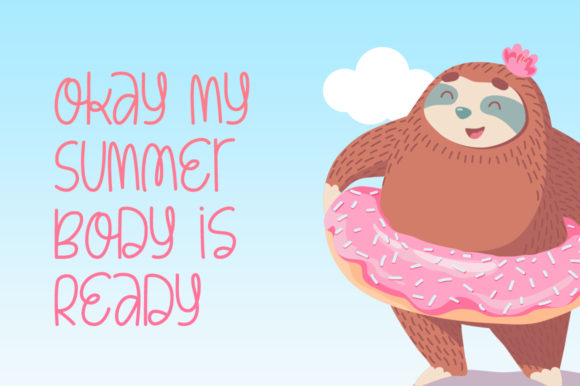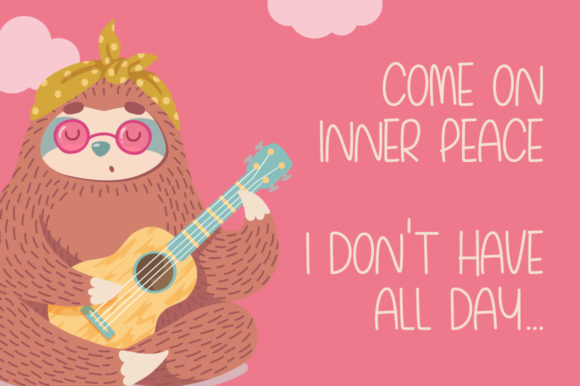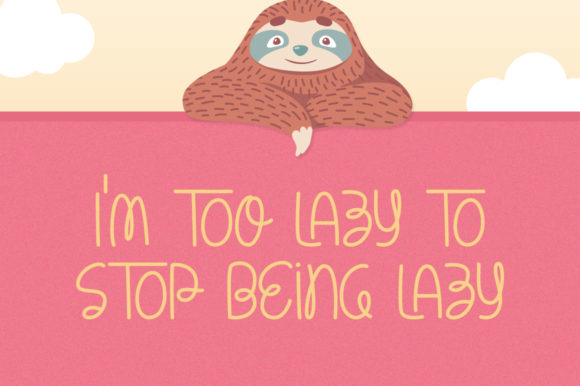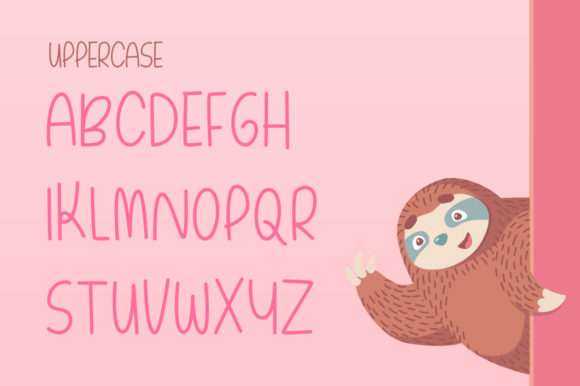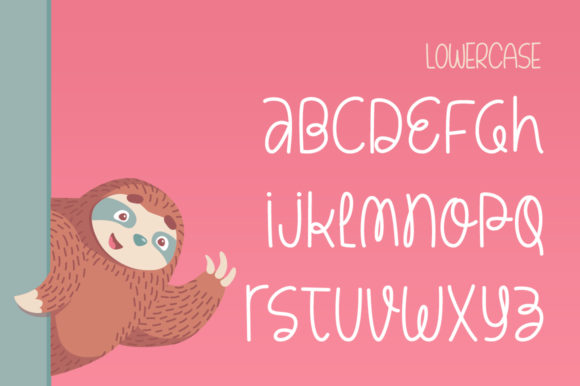
Introduction to Lazy Cuties Font Font
Fonts play a crucial role in design, and the Lazy Cuties Font font is a typeface that brings both character and versatility to any project. Whether you’re working on a branding project, a website, or a print design, the Lazy Cuties Font font offers a unique style that can elevate your work.
| 📌 Font Name | Lazy Cuties Font |
| 👤 Author | Salt and Pepper Fonts |
Lazy cuties is an adorable display font that features some fun and quirky, hand drawn characters.
Perfect for adding a little whimsy to your upcoming projects .
Key Features of Lazy Cuties Font Font
Why Choose Lazy Cuties Font Font?
The Lazy Cuties Font font is more than just a typeface – it’s a design tool that helps you communicate your message with style and clarity. Its unique character set and versatile design make it suitable for a wide range of applications, from elegant invitations to bold headlines.
With its carefully crafted letterforms and balanced proportions, the Lazy Cuties Font font ensures readability and visual appeal across all mediums.
What makes Lazy Cuties Font font special?
The Lazy Cuties Font font stands out with its unique design, exceptional readability, and versatility across various design applications.